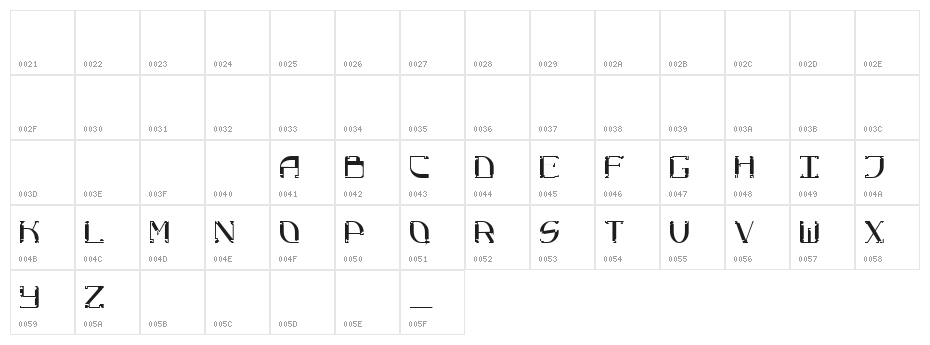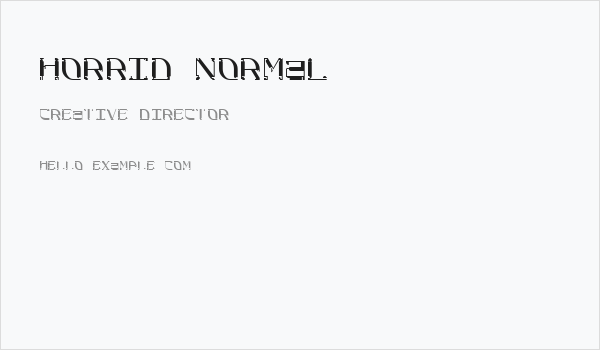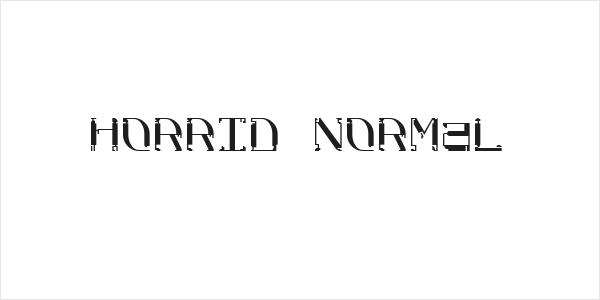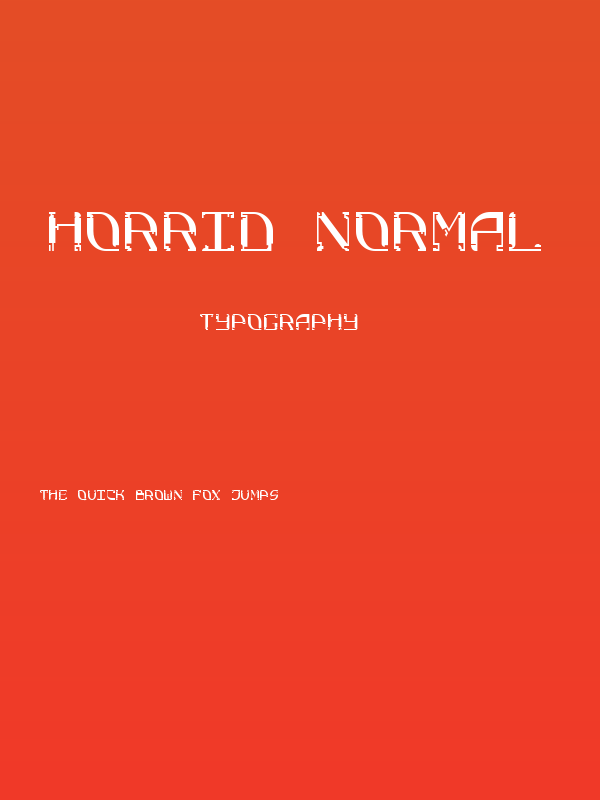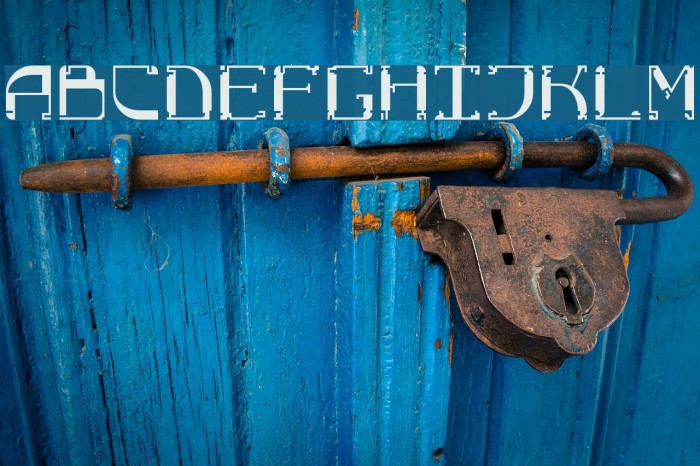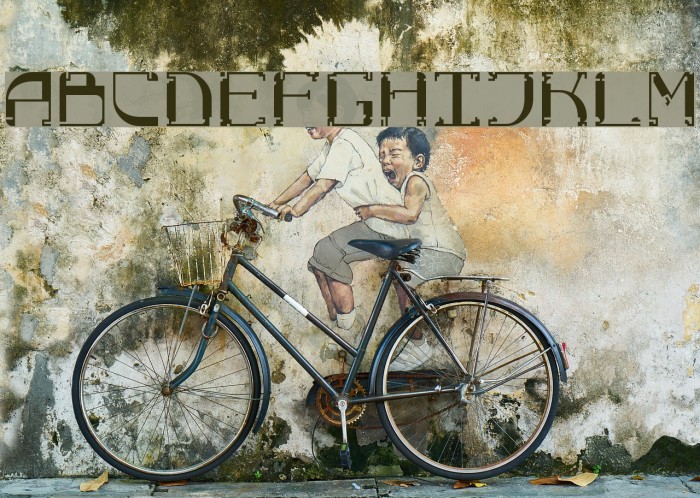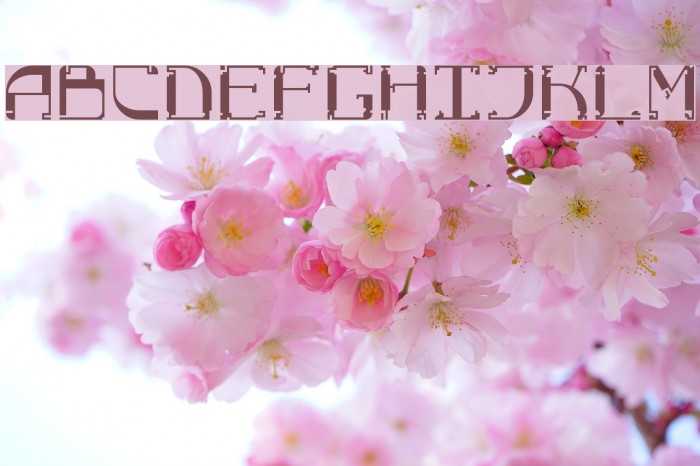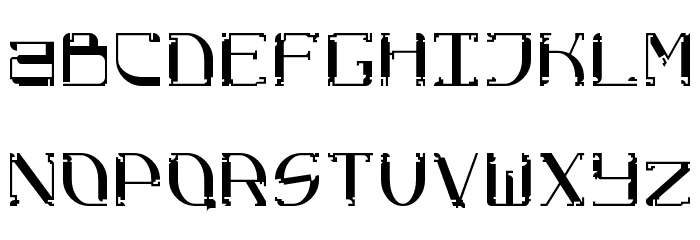
Horrid Normal Font
Horrid Normal Description
This font features a unique and edgy design with a futuristic and mechanical feel. The characters are constructed with a combination of solid and fragmented strokes, giving them a digital, almost pixelated appearance. The uppercase and lowercase letters maintain a consistent style, with angular cuts and geometric shapes that create a sense of movement and dynamism. The numerals and special characters follow the same design principles, ensuring a cohesive look across all glyphs. This font's distinctive style makes it stand out, ideal for projects that require a modern and unconventional aesthetic.
| Use Case | Logos, Headlines, Posters |
| Proposed Projects | Ideal for sci-fi themed designs, video game interfaces, tech branding, and modern posters. |